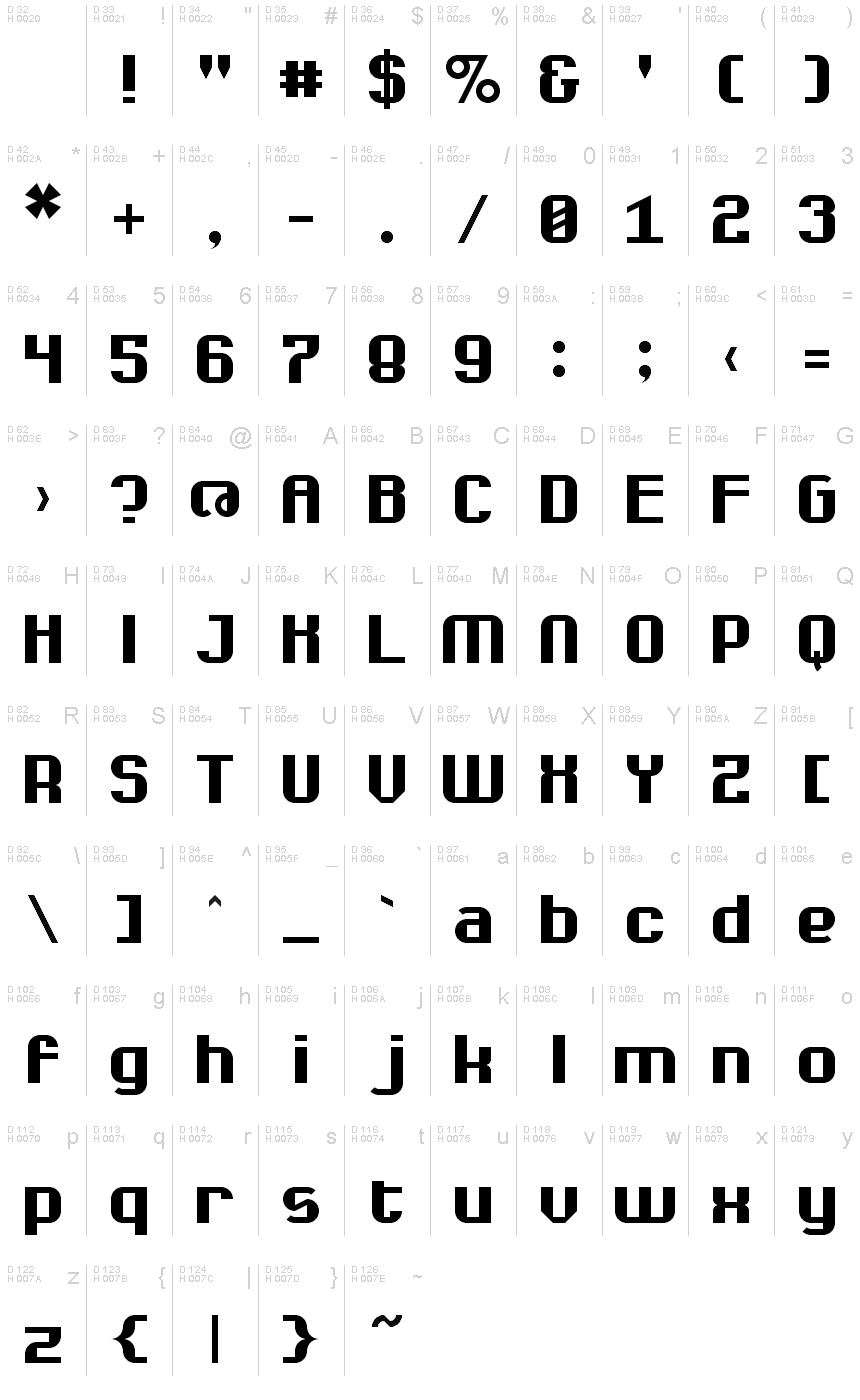
Madcat Regular
“Madcat” was built with FontStruct
Designer description: A combination of deco, sci-fi and modern elements. This was made to be a good subheader font.